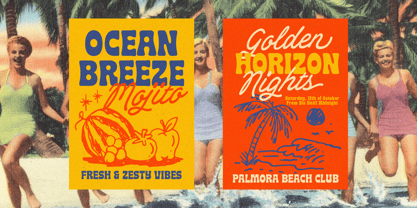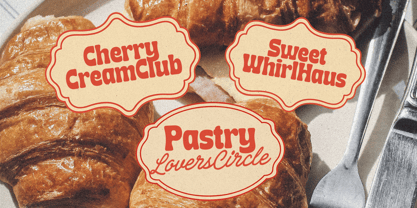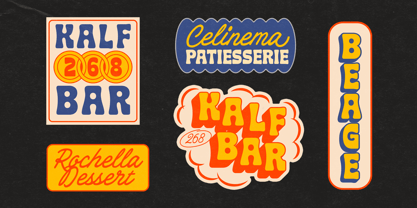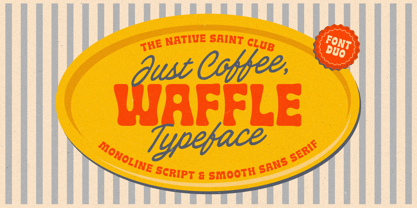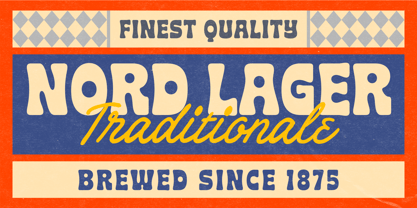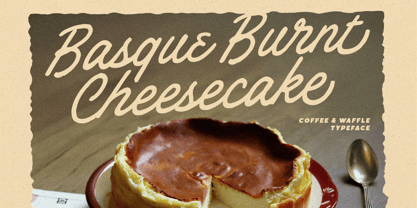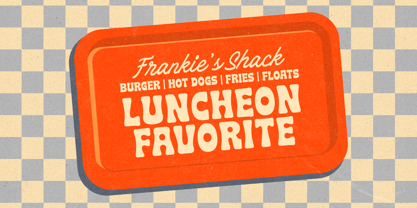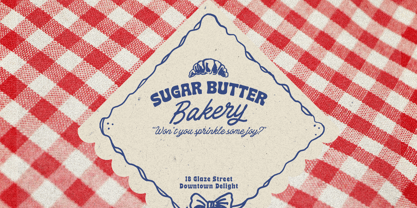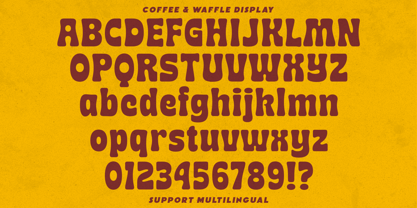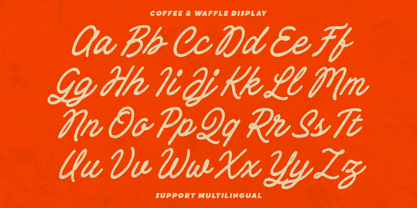
Coffee & Waffle
by The Native Saint Club
The Coffee & Waffle Font Family was designed by Bagas Ferdiansah, Septianto Nugroho and published by The Native Saint Club. Coffee & Waffle contains 2 styles and family package options. More about this family
TNSC Coffee & Waffle, a playful yet versatile font duo that combines a smooth sans serif with a monoline script. Inspired by vintage coffee shops, classic diners, and bold retro packaging, this typeface brings warmth, character, and a touch of nostalgia to your creative projects. What’s Inside: Coffee & Waffle Sans Coffee & Waffle Script Multilingual support